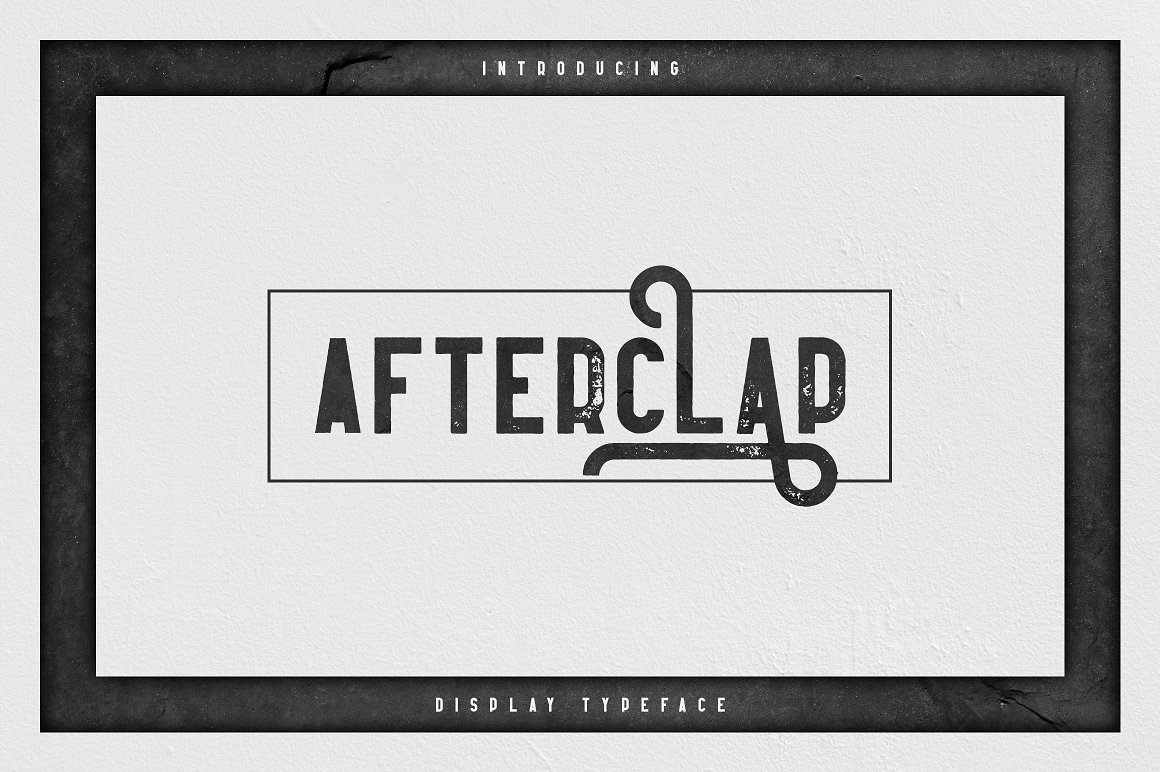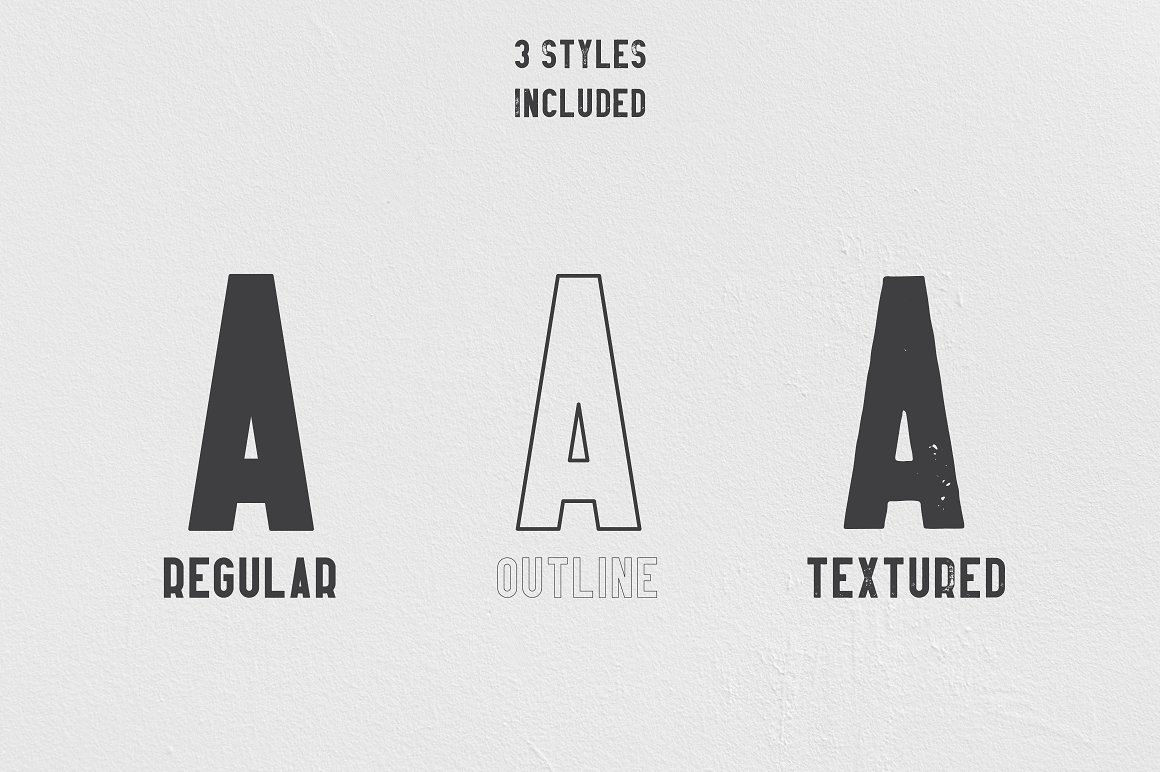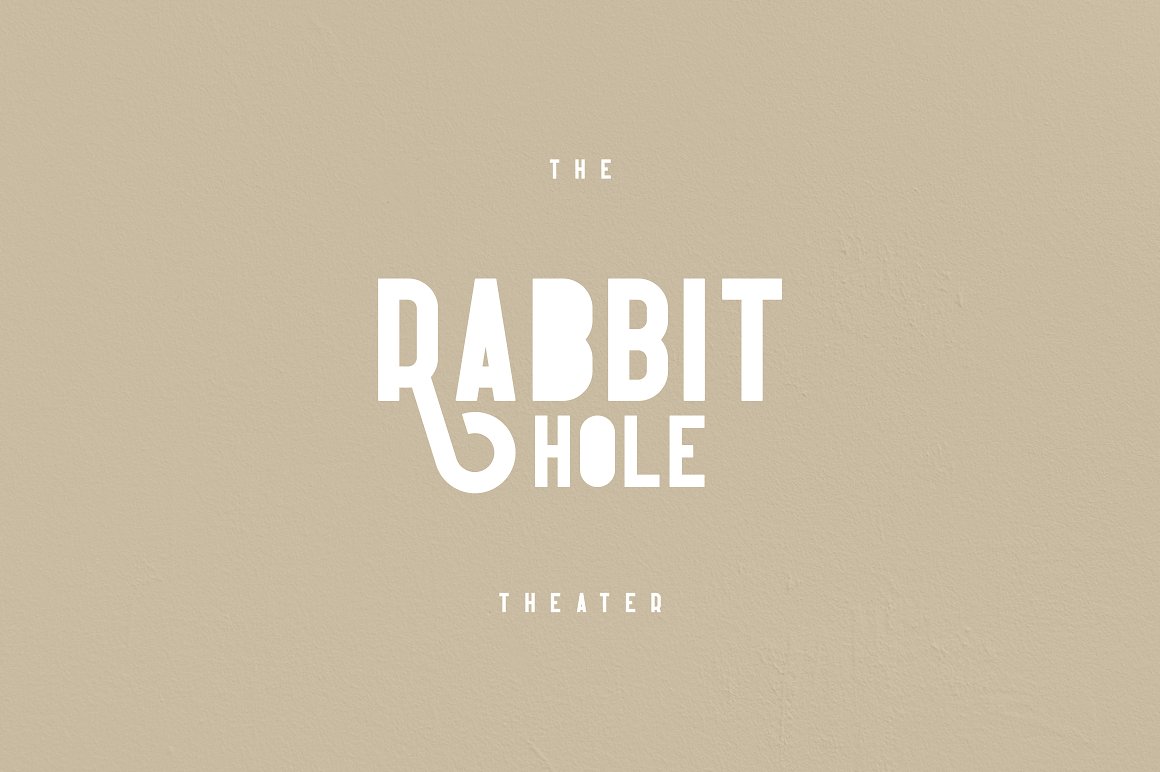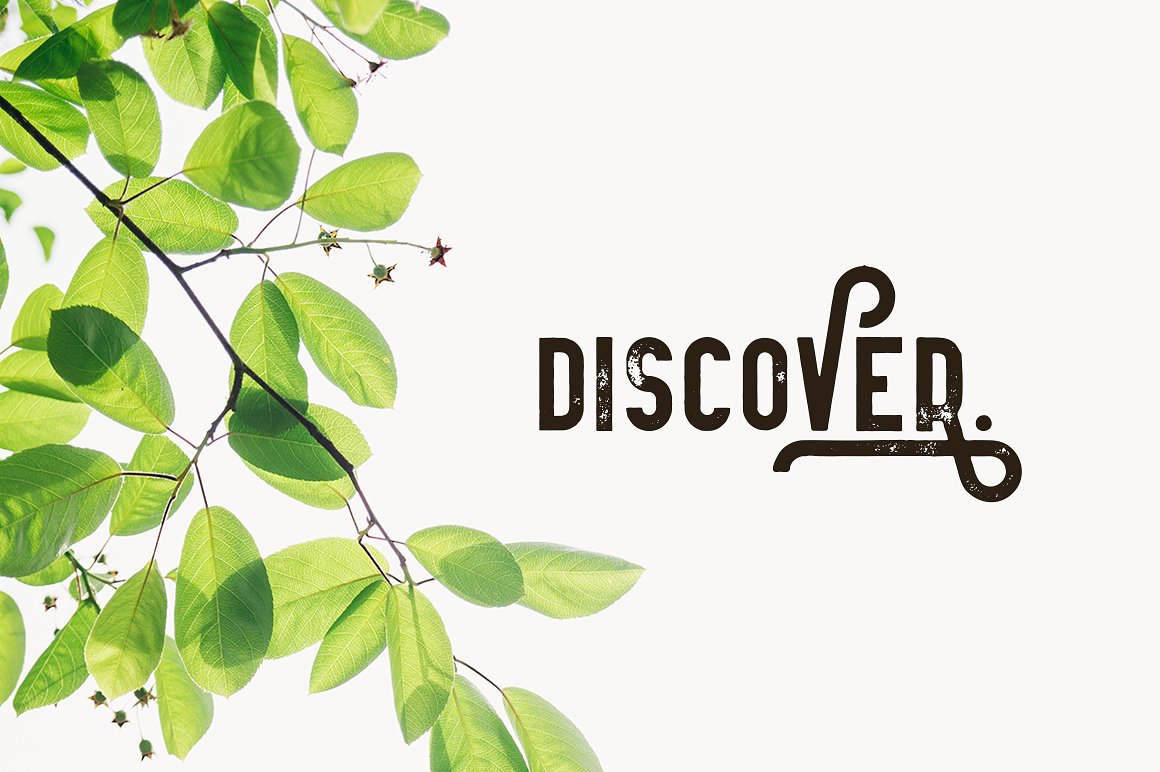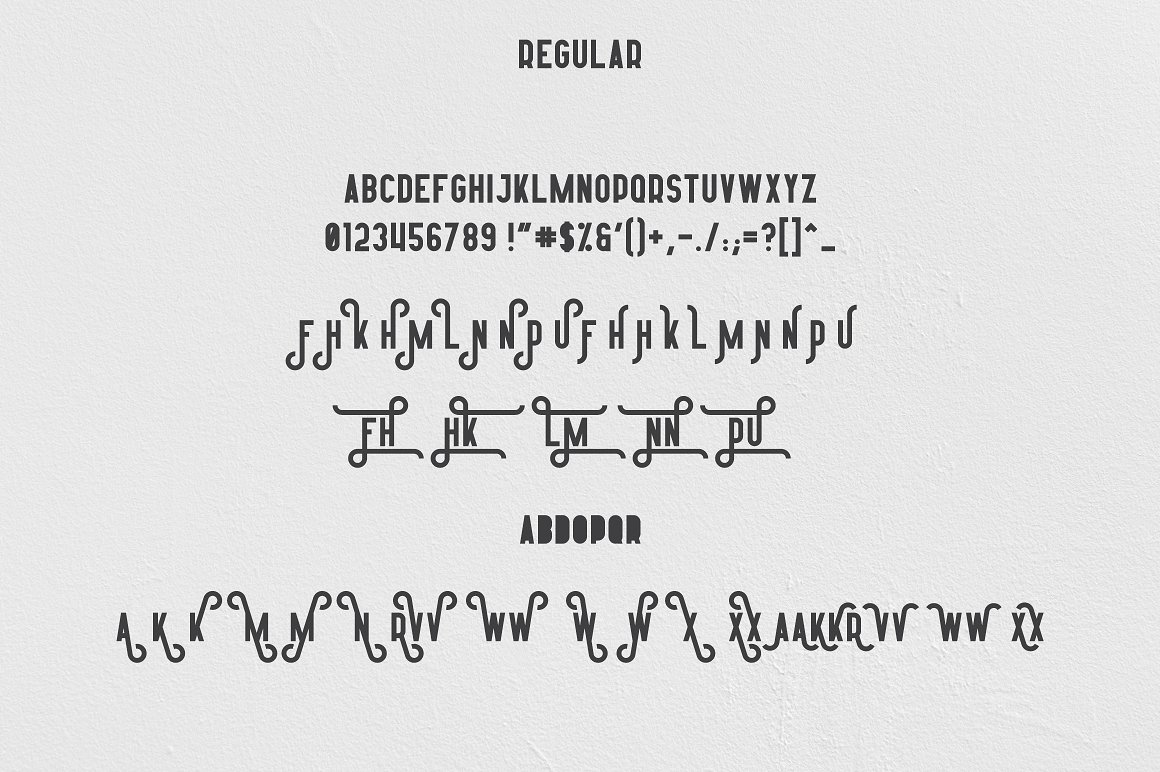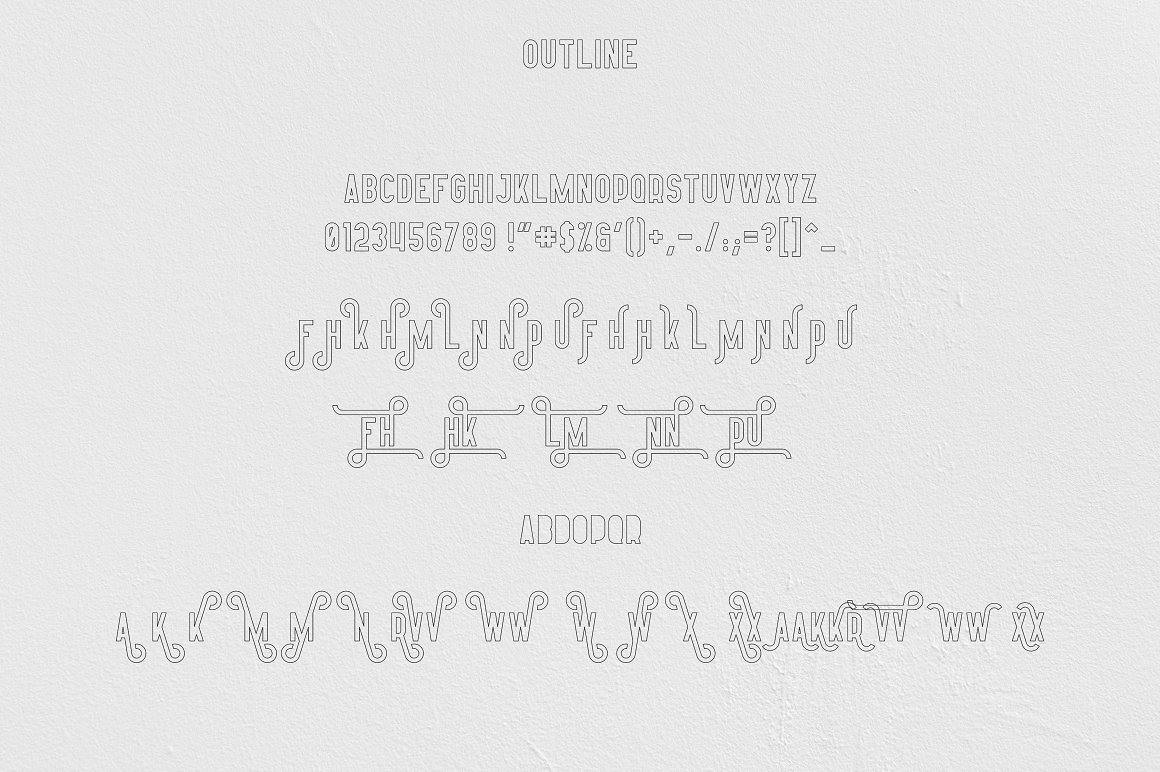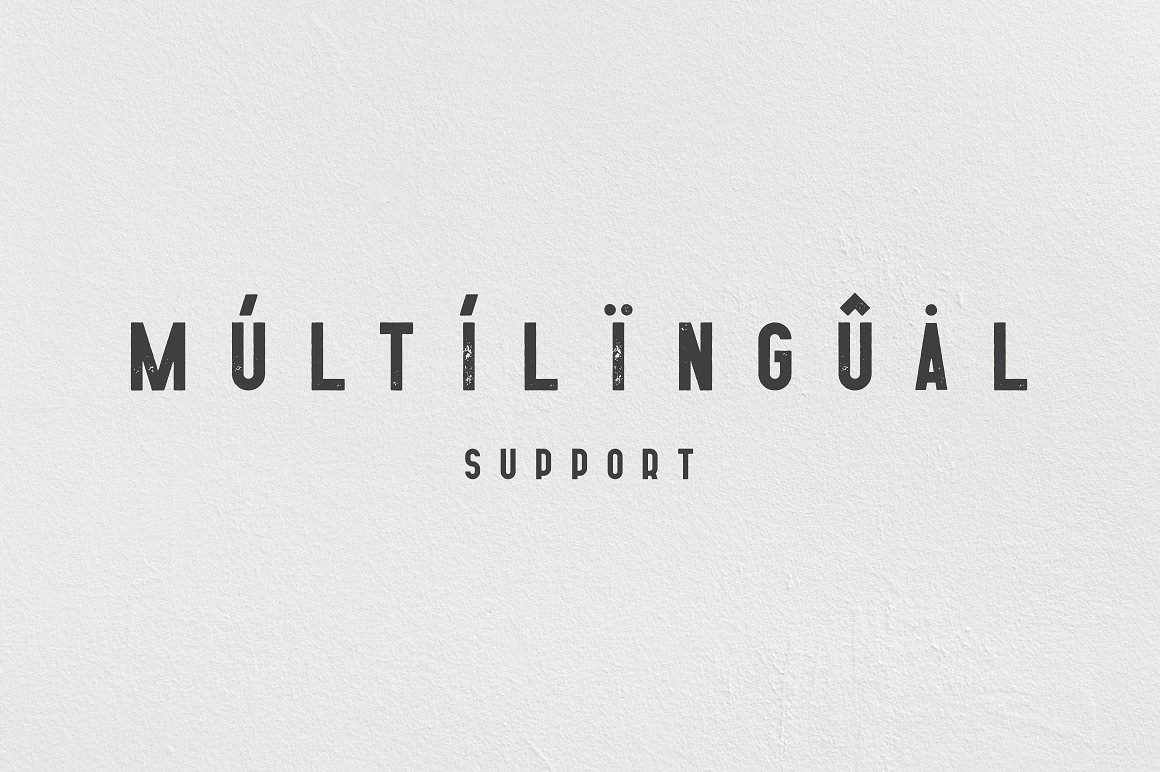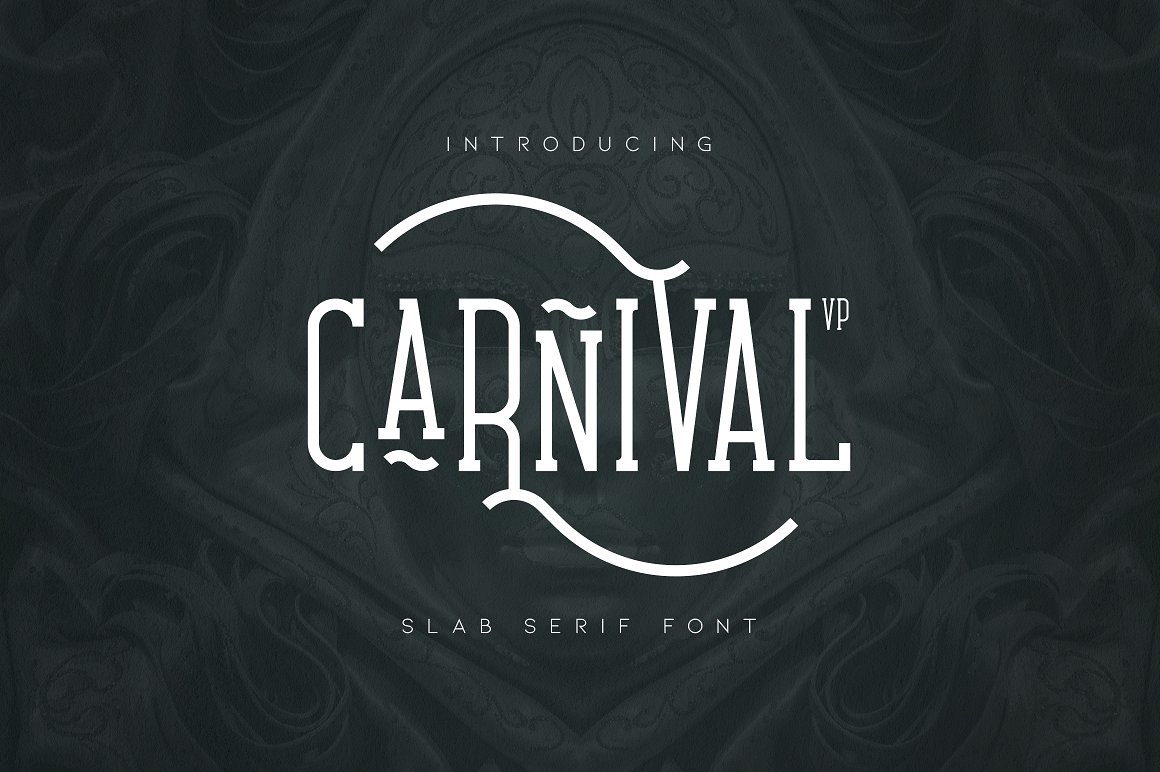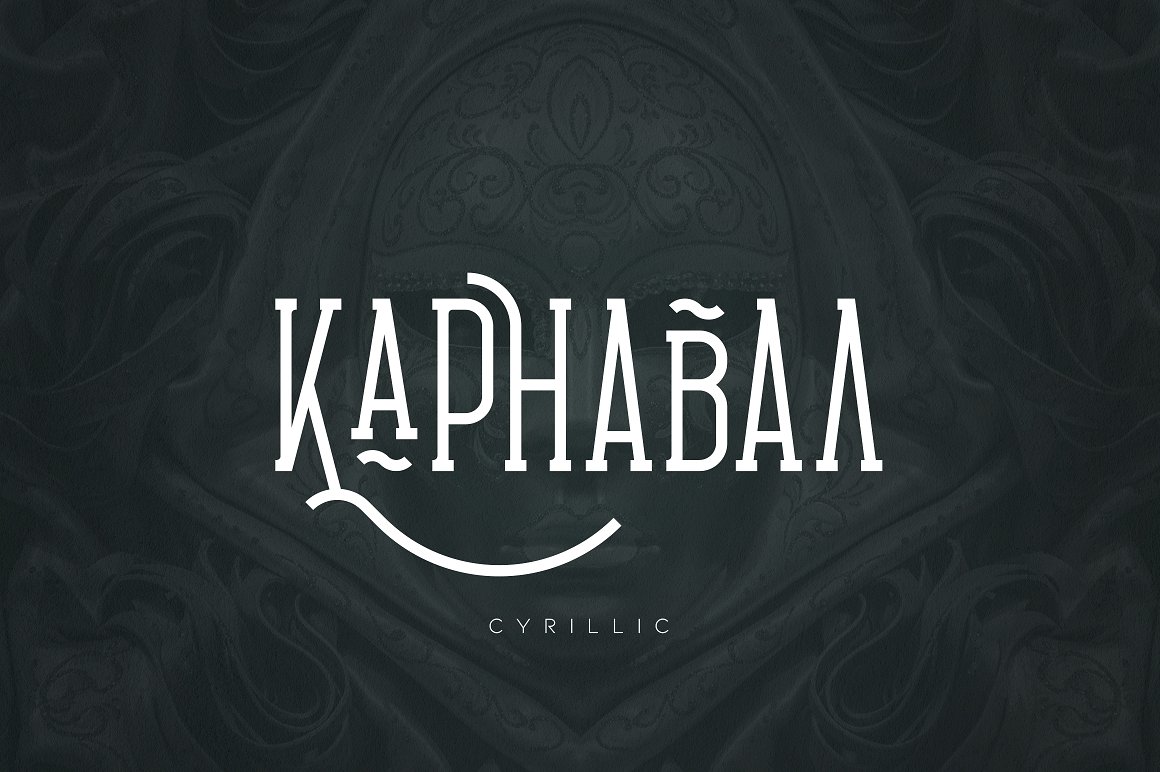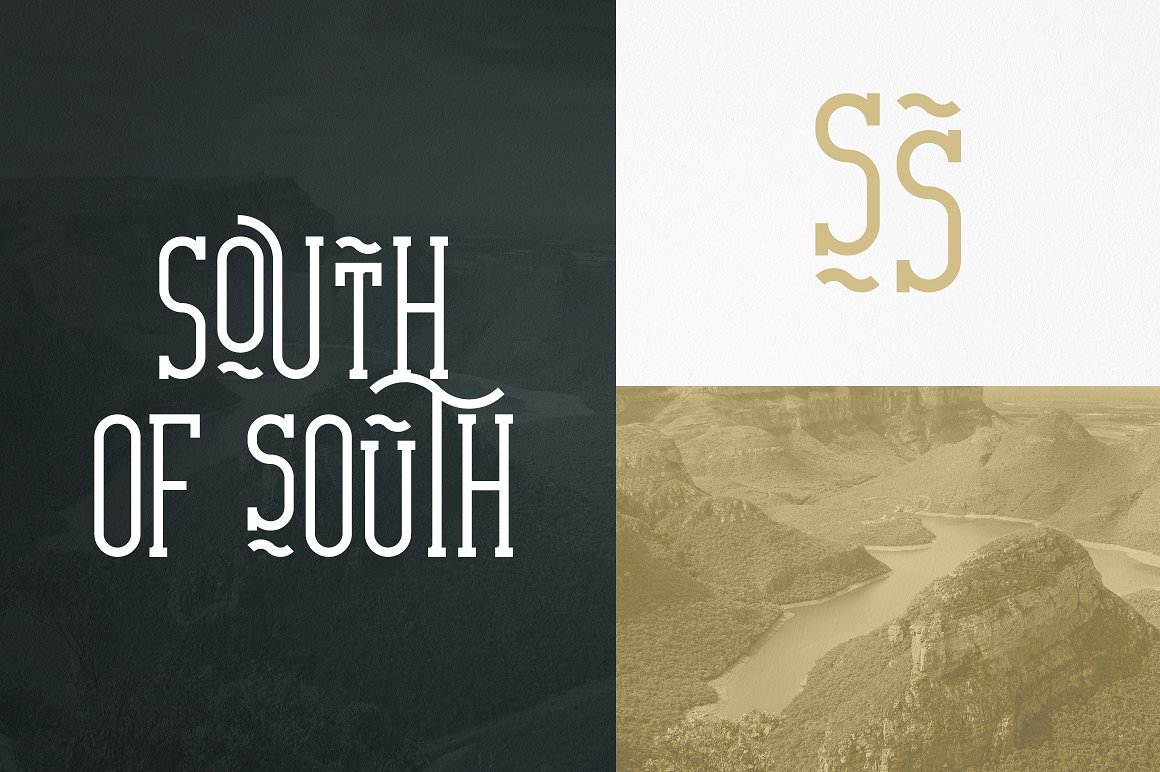
The Vintage Font Collection
The Vintage Font Collection is bold, vintage collection loaded with 20 fonts. They are very versatile fonts that works great in large and small sizes.
This collection from VPcreativeshop is perfect for branding projects, home-ware designs, product packaging, magazine headers – or simply as a stylish text overlay to any background image.
- 20 sans serif and display fonts in 6 families
- multilingual support
- 3 font families have also Cyrillic support – Russian, Ukrainian, Bulgarian and more
20 sans serif and display fonts in 6 families!
01. Greenth Display | Latin & Cyrillic from VPcreativeshop
Greenth is vintage, bold typeface with latin and Cyrillic support. Every font contains 1221 glyphs, tons of alternate glyphs, ligatures and multilingual support. It’s a very versatile font that works great in large and small sizes.
Greenth is perfect for branding projects, home-ware designs, product packaging, magazine headers – or simply as a stylish text overlay to any background image.
- Uppercase, numeral,punctuation & Symbol
- Each font contains 1221 glyphs
- Cyrillic support – Russian, Ukrainian, Bulgarian and more
- Alternate glyphs
- Ligatures
- Multilingual support – Afrikaans Albanian Bulgarian Danish Dutch English Estonian Finnish French German Icelandic Italian Norwegian Portugese Russian Spanisch Swedish Zulu
- Regular
- Outline
- Diagonals
- Rust Diagonals
- Dots
- Grunge
02. Carnival VP Slab – Latin & Cyrillic from VPcreativeshop
Carnival is long, clean font with latin and Cyrillic support, tons of alternate glyphs, and multilingual support. It’s a very versatile font that works great in large and small sizes.
Carnival is perfect for branding projects, home-ware designs, product packaging, magazine headers – or simply as a stylish text overlay to any background image.
- Uppercase, numeral,punctuation & Symbol
- Cyrillic support – Russian, Ukrainian, Bulgarian and more
- Alternate glyphs
- Multilingual support
03. Errorist – Vintage Typeface from VPcreativeshop
Errorist is long, vintage typeface with 3 styles, tons of alternative glyphs and multilingual support. It’s a very versatile font that works great in large and small sizes.
Errorist is perfect for branding projects, home-ware designs, product packaging, magazine headers – or simply as a stylish text overlay to any background image.
- Uppercase,lowercase, numeral,punctuation & Symbol
- Regular
- Outline
- Textured
- Tons of alternative glyphs
- Multilingual support
04. Afterclap typeface – 3 styles from VPcreativeshop
Afterclap is clean, bold, vintage typeface with 3 styles, tons of alternative glyphs and multilingual support. It’s a very versatile font that works great in large and small sizes.
Afterclap is perfect for branding projects, home-ware designs, product packaging, magazine headers – or simply as a stylish text overlay to any background image.
- Uppercase,lowercase, numeral,punctuation & Symbol
- Regular
- Outline
- Textured
- Tons of alternative glyphs
- Multilingual support
05. Harrison – Retro typeface from VPcreativeshop
Harrison is retro, bold typeface with latin and Cyrillic support, includes regular, outline, rough versions and multilingual support. It’s a very versatile font that works great in large and small sizes.
Harrison is perfect for branding projects, home-ware designs, product packaging, magazine headers – or simply as a stylish text overlay to any background image.
- Uppercase, lowercase, numeral, punctuation & Symbol
- Cyrillic support – Russian, Ukrainian, Bulgarian and more
- Regular, outline, rough versions
- Multilingual support
06. Propaganda – Vintage typeface from VPcreativeshop
Propaganda is vintage, clean and bold typeface with 4 weights, 54 alternate glyphs, tons of alternatives and multilingual support. It’s a very versatile font that works great in large and small sizes.
Propaganda is perfect for branding projects, home-ware designs, product packaging, magazine headers – or simply as a stylish text overlay to any background image.
- Uppercase, numeral,punctuation & Symbol
- Light
- Regular
- Bold
- Black
- Ligature glyphs
- Alternate glyphs
- Multilingual support